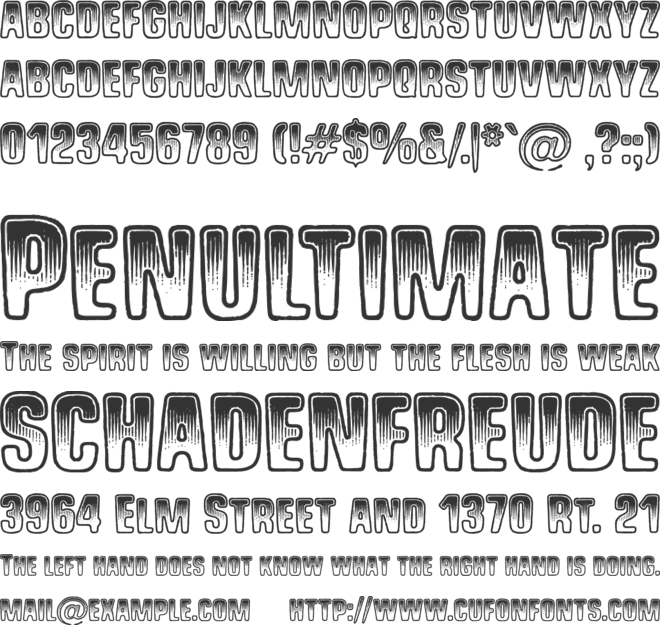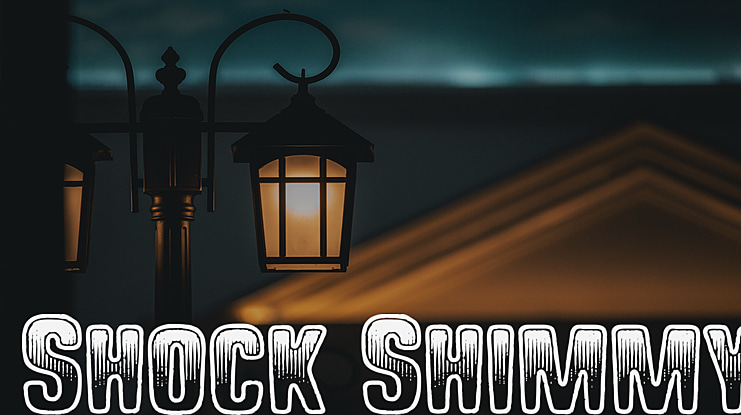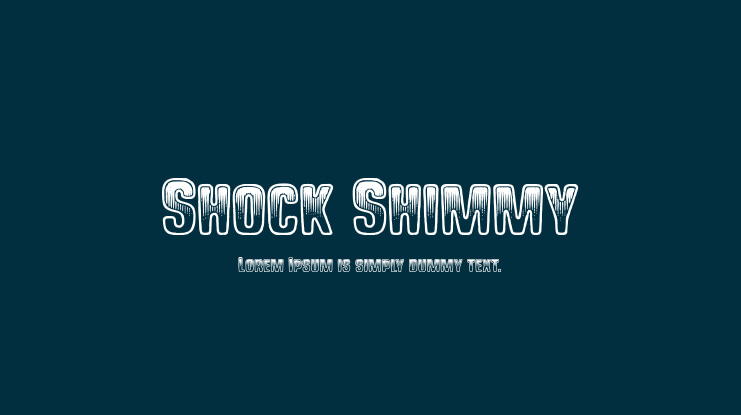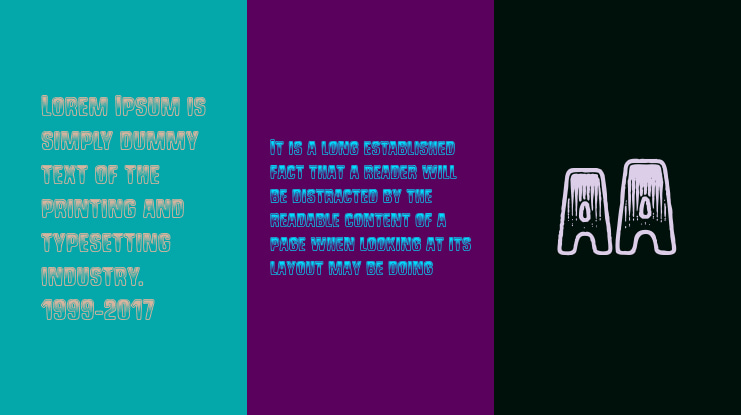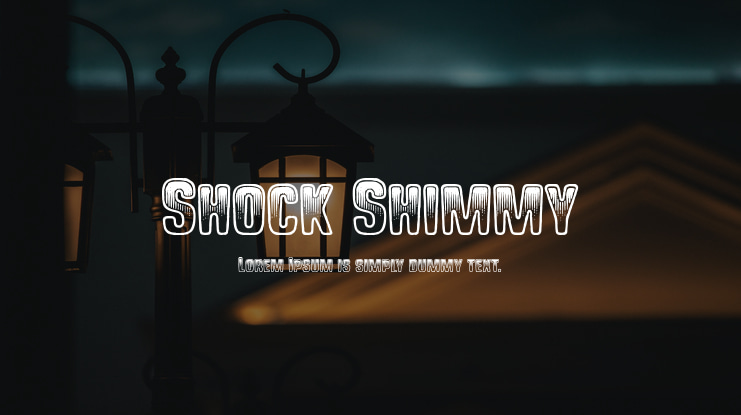
To the extent that the “vaguely wobbly font with vertical lines inside it, fading from either the top or bottom” is a font genre, this is my hat in that particular ring. As usual, I've followed some of the rules and ignored others … the forms are more regular than most, the fading lines a little more “Uresia mapping” and a little less “Monster Mash,” and the whole thing is a bit on the jaunty side.
That part's important. While many of my fonts come from some specific graphic-project need or honor some particular person, this font sprung from a mood, and not a particularly good one. Without getting too deep into the details, there was some trouble recently between Friend A and Friend B. A hurt B (and in the process, hurt a lot of the rest of us) and for a time it was necessary that I focus on the needs of Friend B without indulging too deeply in how I now felt about Friend A. Last night I finally started indulging, and tallying what I've personally lost to to the harmful act of Friend A (Acquaintance A, right now).
The thing is, being grouchy put me in a mood where I needed to make something that wasn't grouchy at all. I needed something playful, something punchy, something bold and bright and upbeat. This font is all that, which just goes to show that a grouchy energy can be reflected back into something positive. While I'm not sure what you'd license this font for (a halloween party for fifth-graders? A particularly lighthearted bar-band poster?), I hope it gives you a grin either way. It did the trick for me, and kept me company on a night when I needed some. And for my next trick, I'll be finishing a big font project to honor and celebrate Friend B properly (I've been working on it for months, it's just finally coming together). SHOCK SHIMMY is a full-keyboard small-caps set with some of the usual extras. Enjoy!